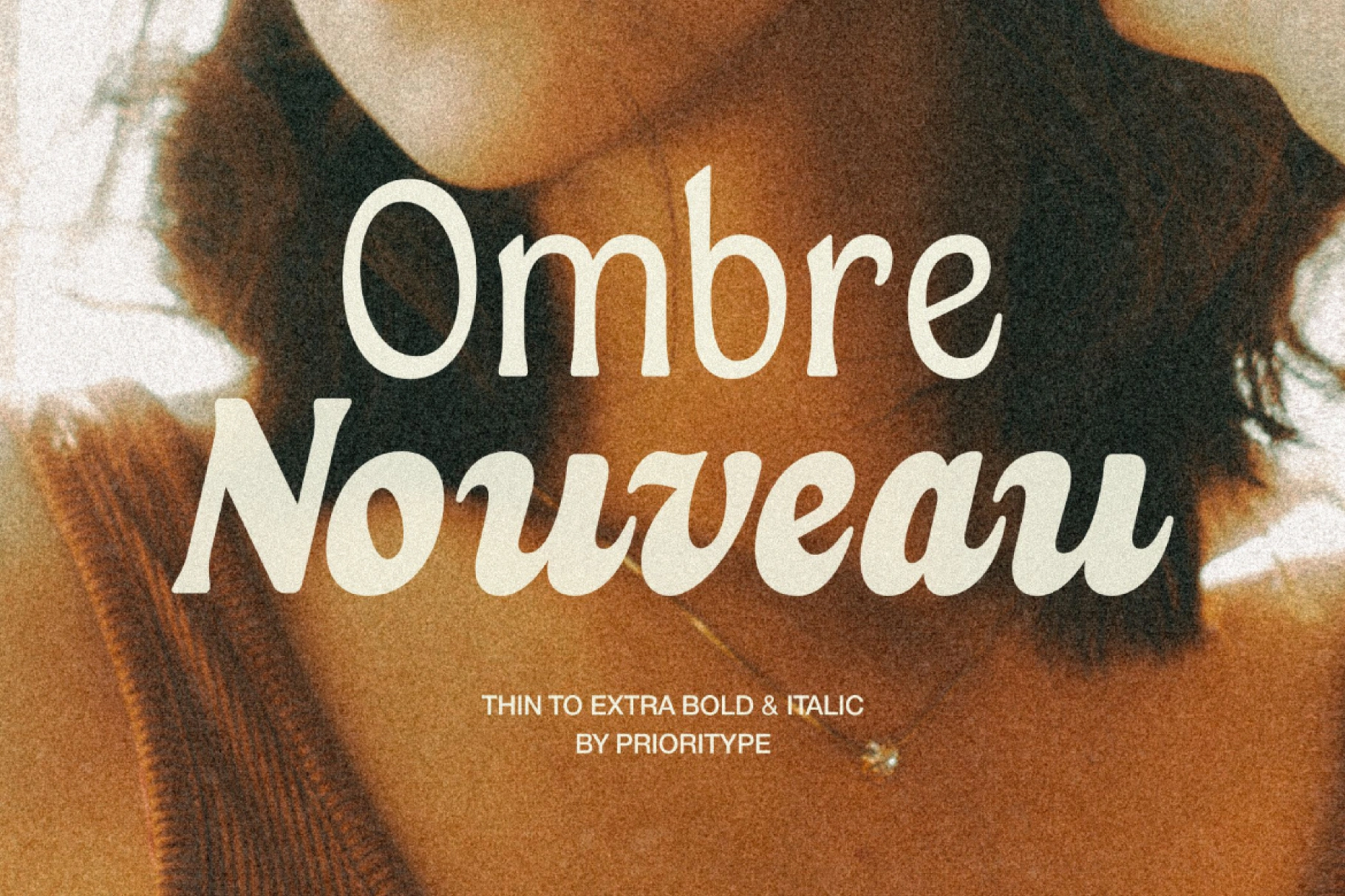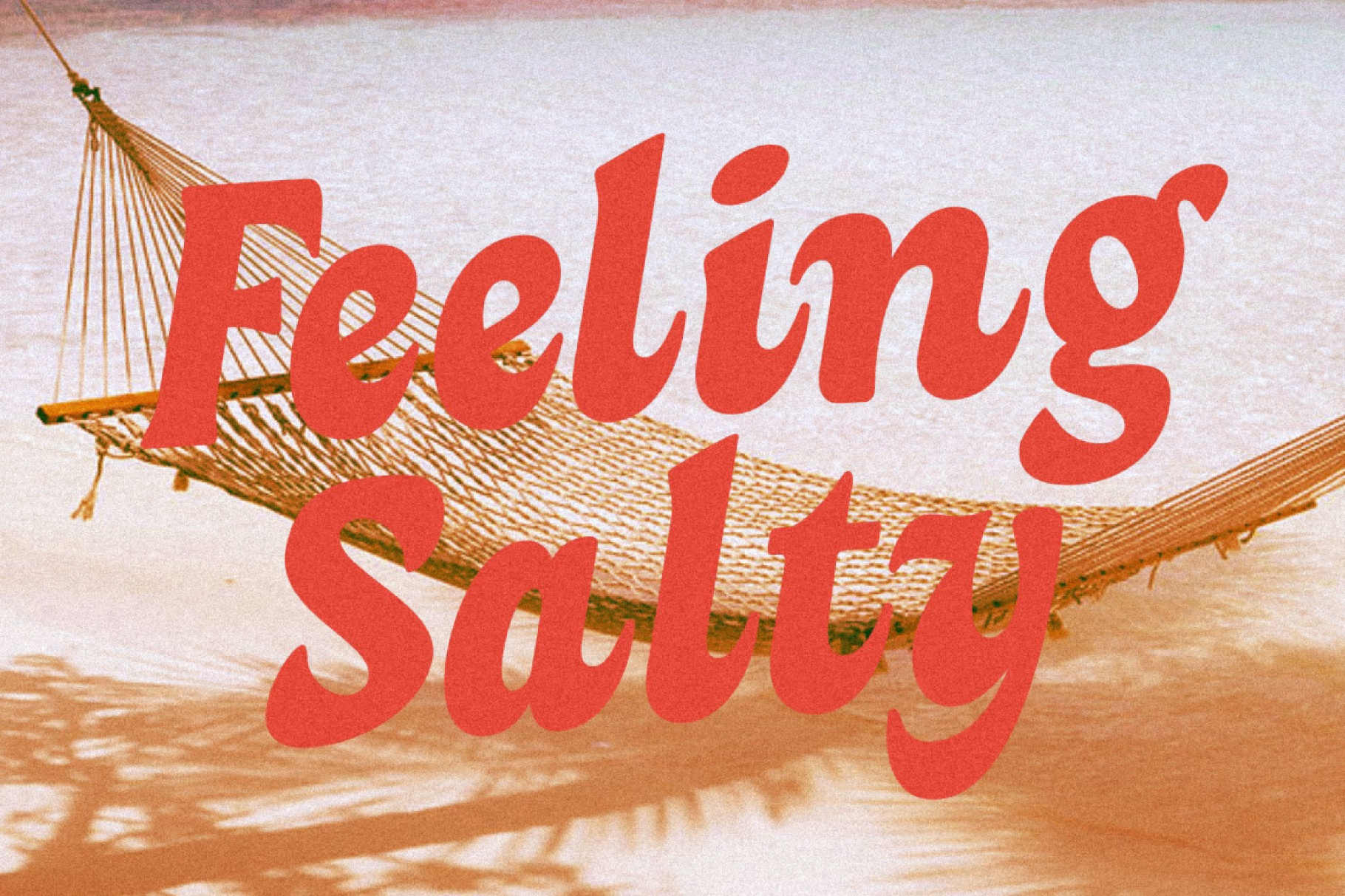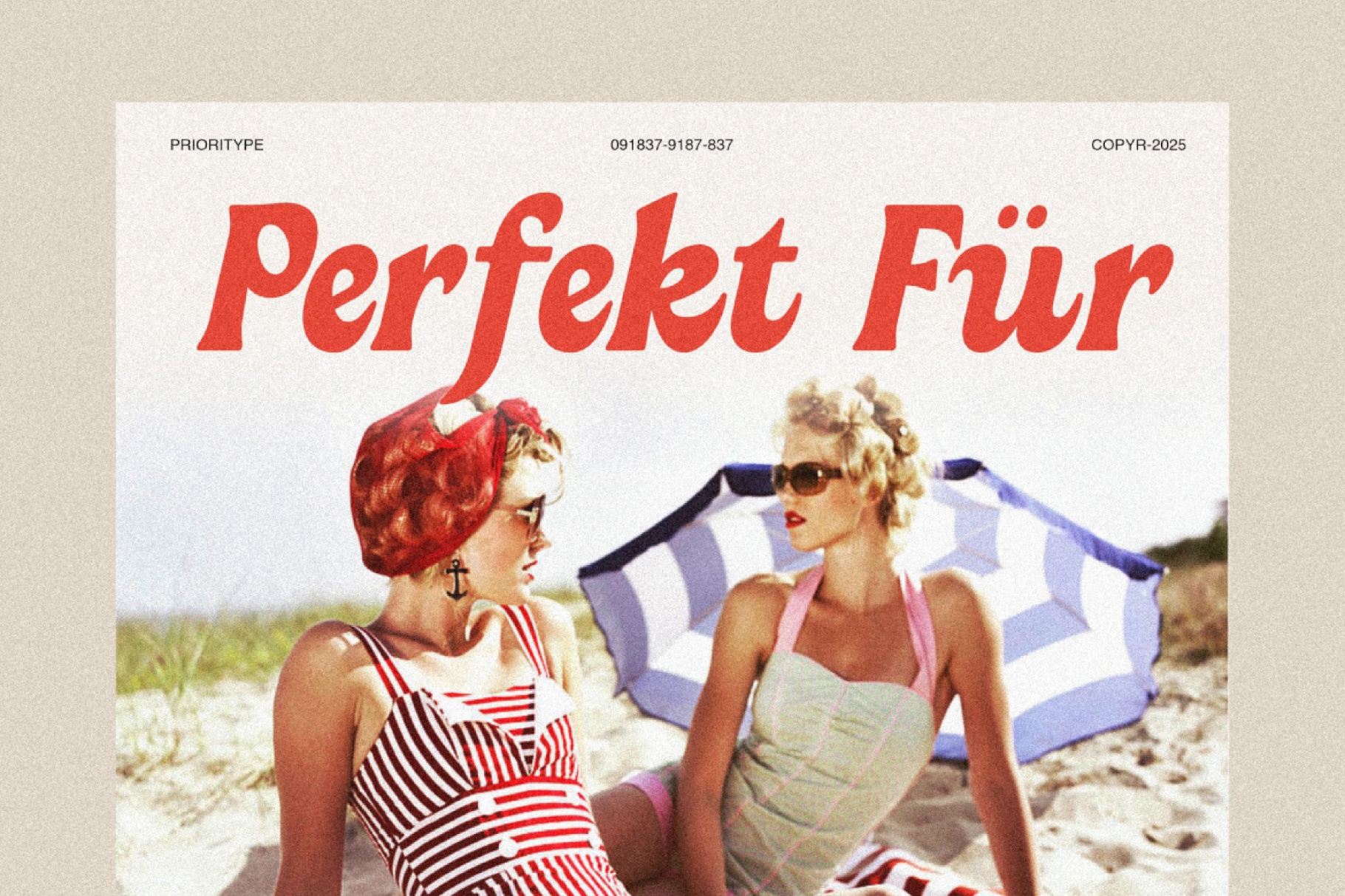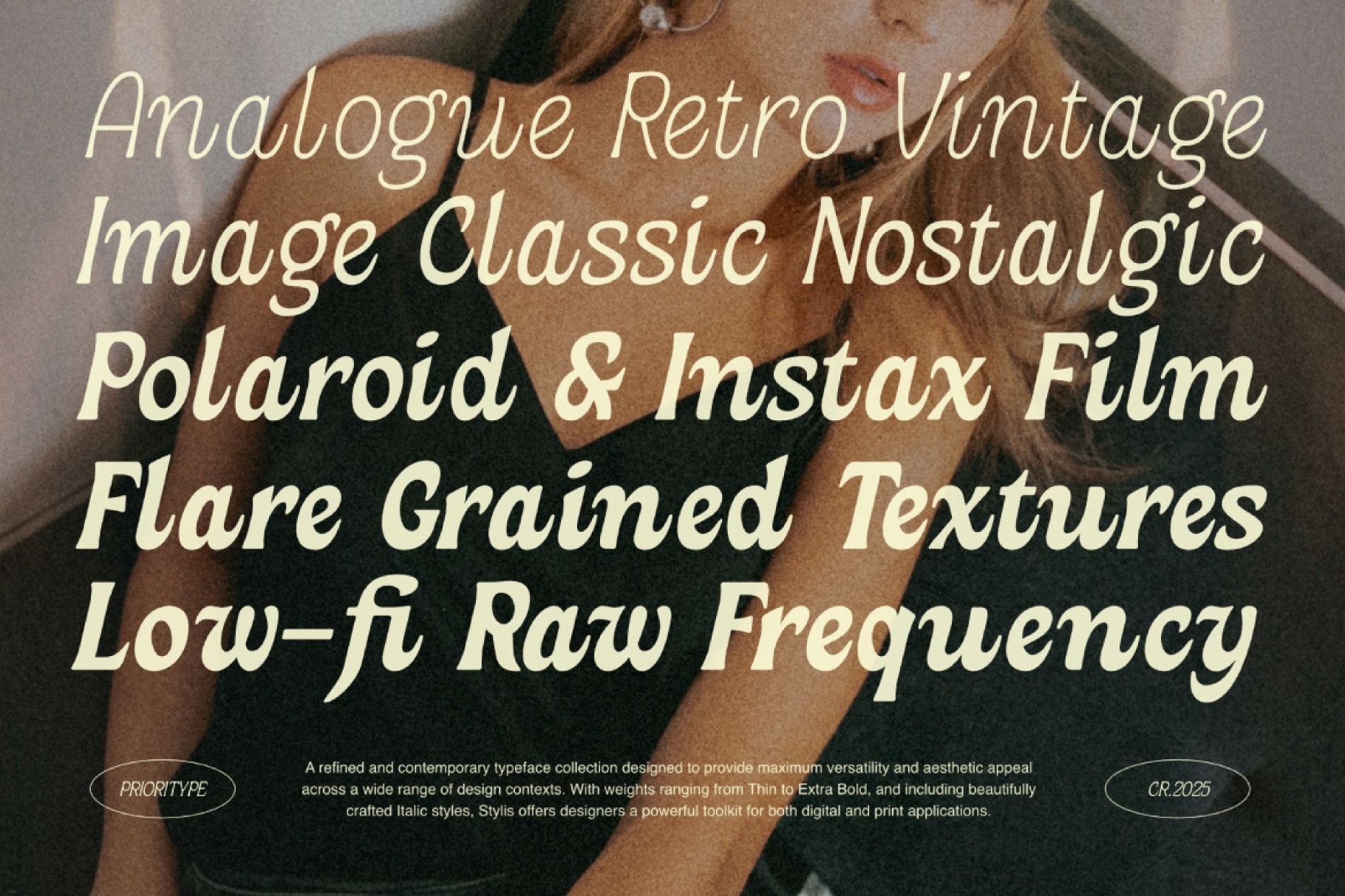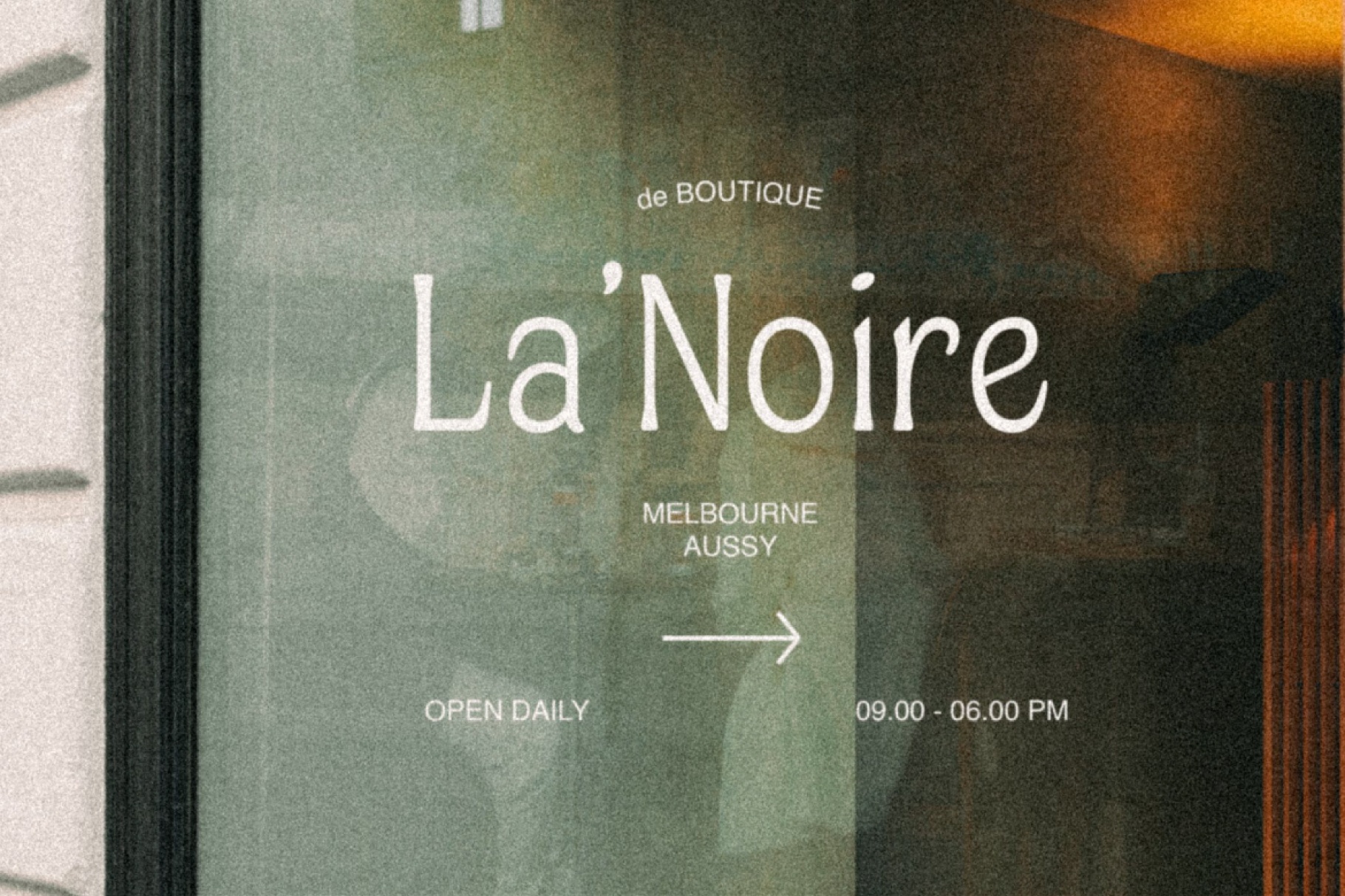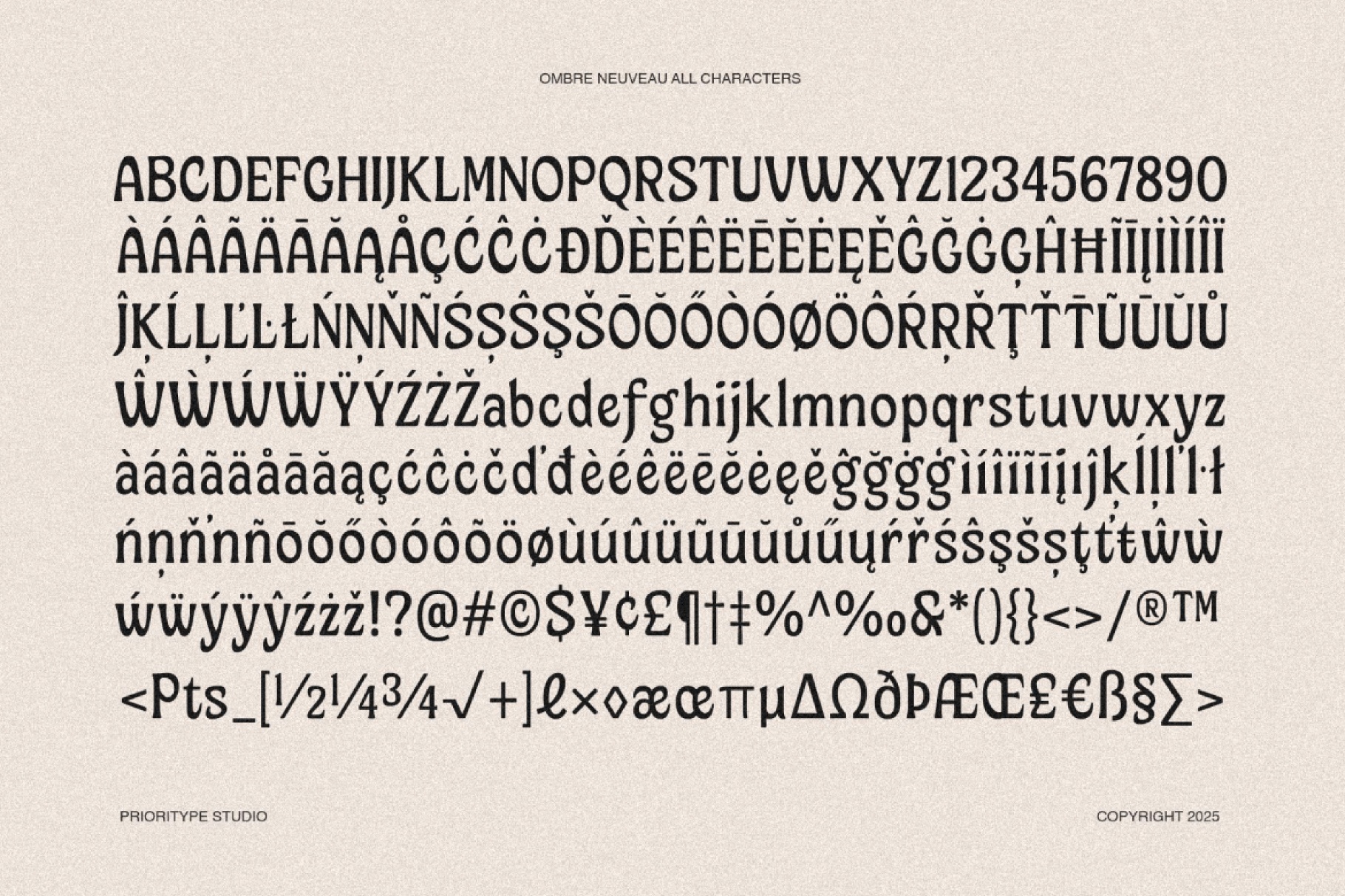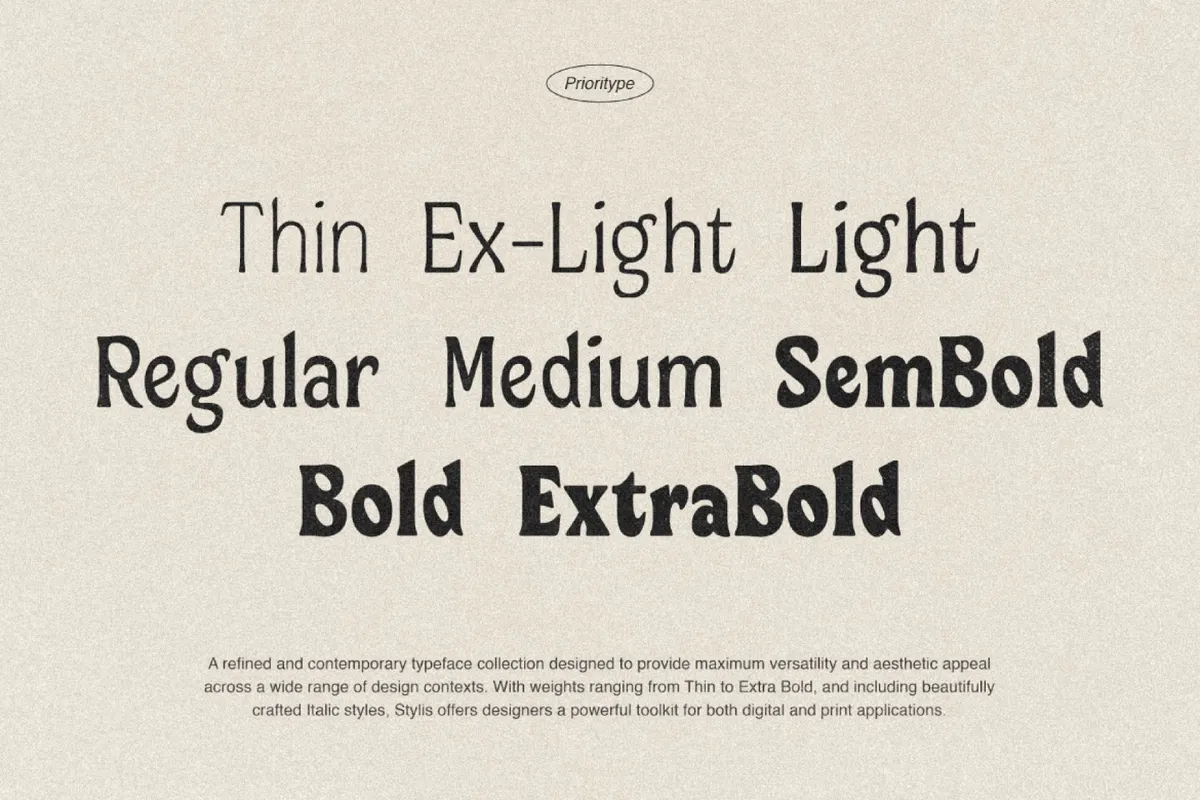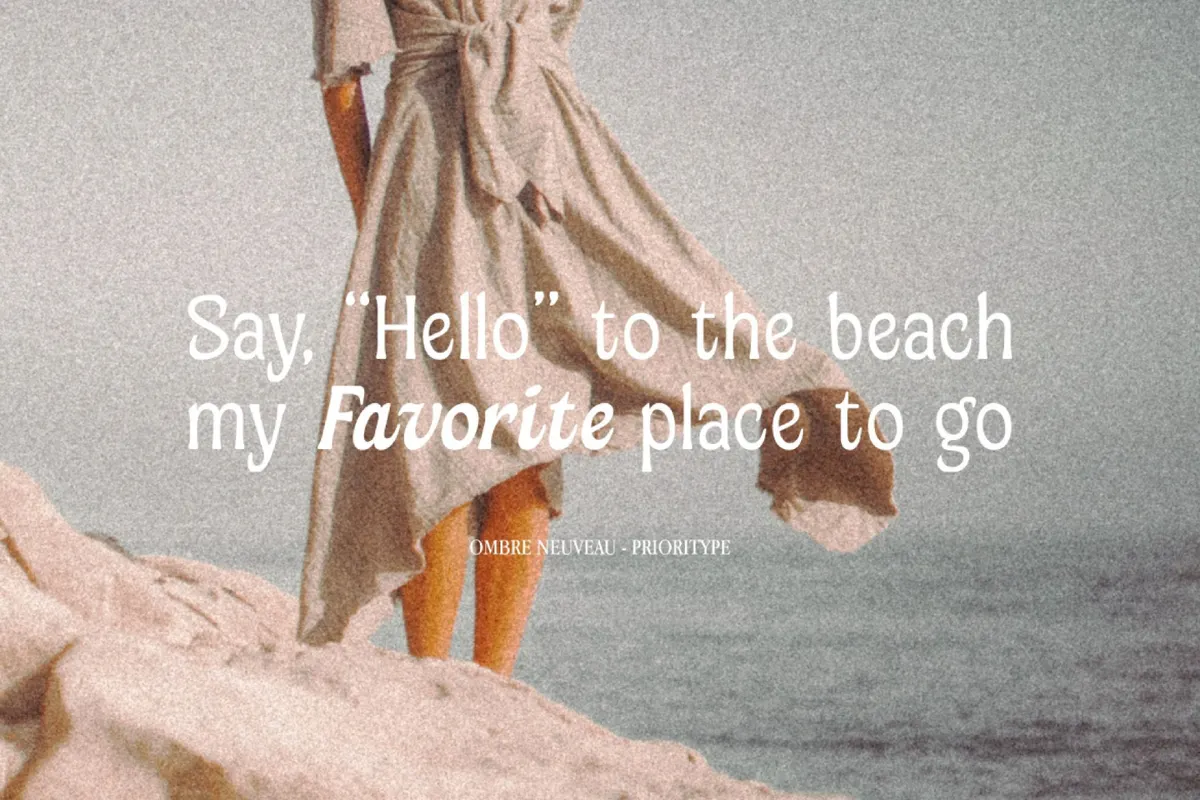
Ombre Nouveau – Retro Stylish Serif Font
Ombre Nouveau is a stylish serif font family that blends retro charm with contemporary elegance. Spanning from Thin to Extra Bold, each weight is meticulously crafted to bring both character and clarity to your designs. The family also includes beautifully slanted Italic styles for every weight, offering flexibility and flair.
Perfect for editorial layouts, branding, logos, and sophisticated headlines, Ombre Nouveau delivers a timeless look with a modern twist. With a full Variable Font file included, you can seamlessly fine-tune weight and style to match your creative needs.